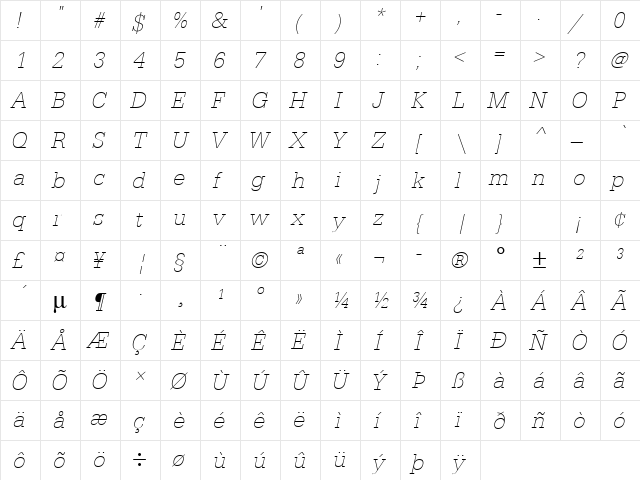
URWEgyptienneTExtLigNar Oblique
Design Context for URWEgyptienneTExtLigNar Typeface
URWEgyptienneTExtLigNar is a composed and adaptable typeface that performs quietly and consistently across a wide range of design contexts. Its italic angle brings a sense of urgency and motion to the letterforms.
Pro Tip: Try URWEgyptienneTExtLigNar for annotation and caption copy alongside an upright companion — the contrast in angle creates a dynamic but ordered typographic system.